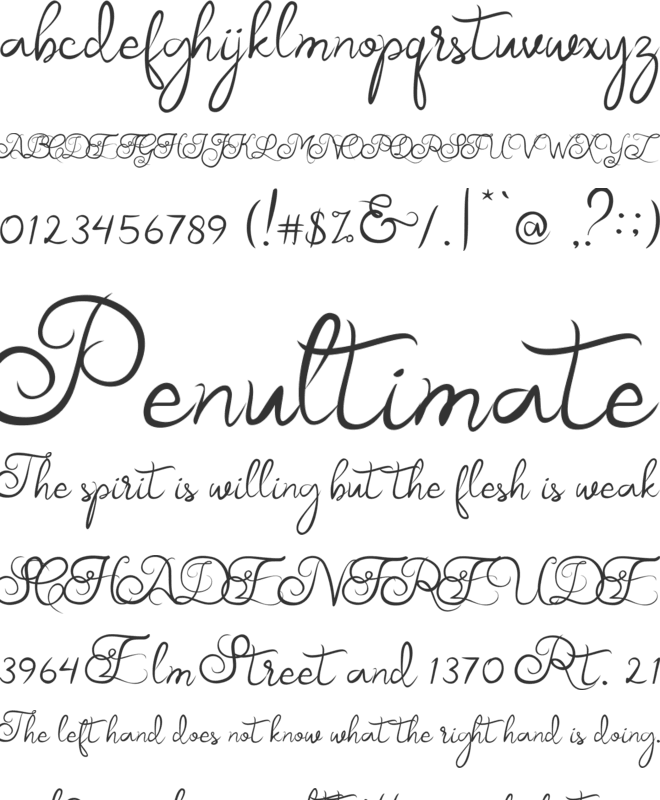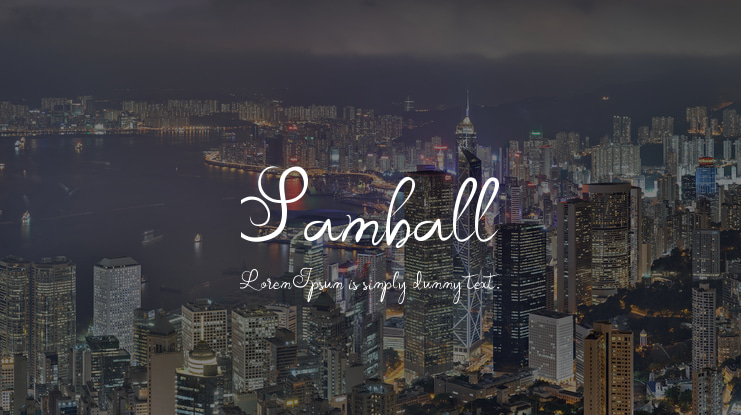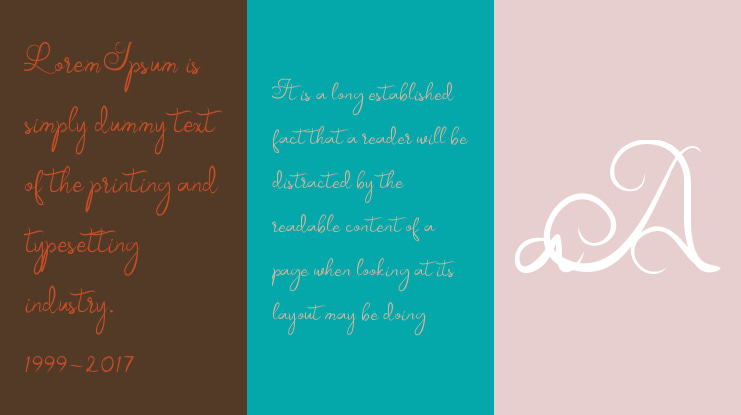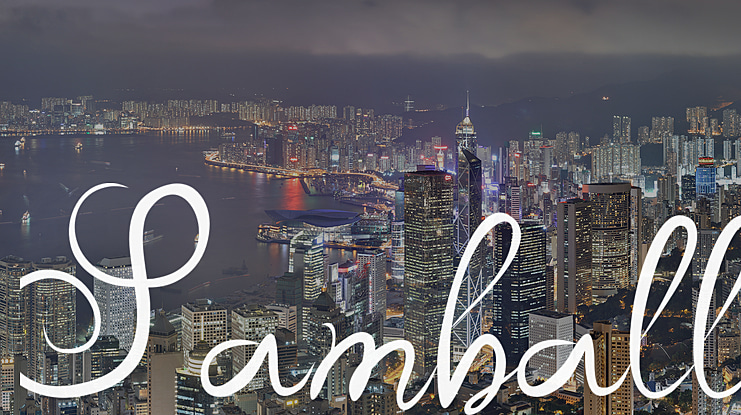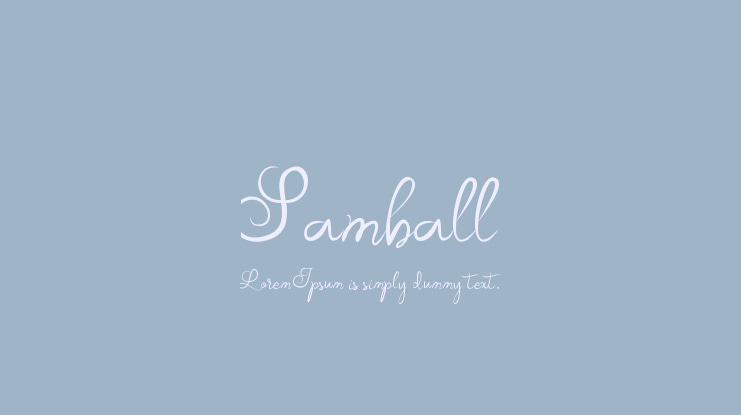
INTRODUCING SAMBALL HANDWRITTEN FONT
Samball is a fantastic font for me, because this font has many advantages. This font is not only superior to the number of ligature that reaches more than 30, but also has various types of swash on the front and back of the letters. You can freely use a variety of attractive, natural and beautiful ligature.
Ligature: tt st aa rr ss oo ff fj fp gg ll sl or yj qp zp yp jp gj zj qj gp jj on om oy oz op ox Ls Lr